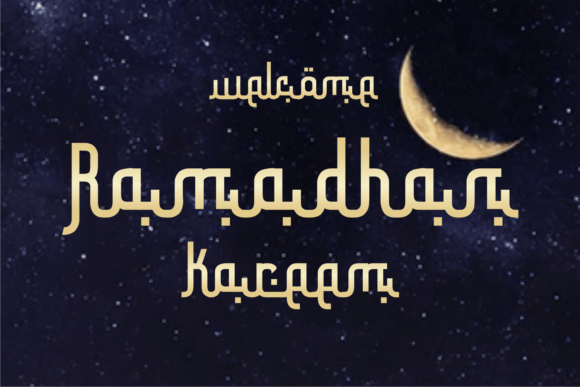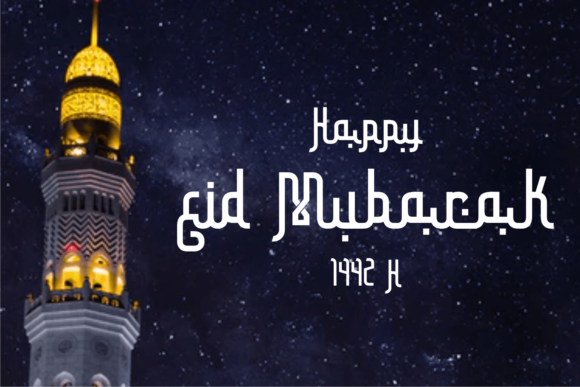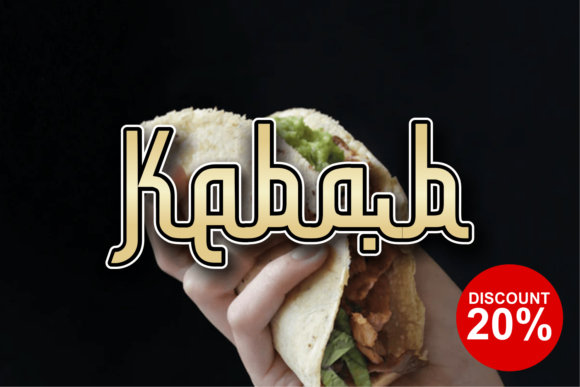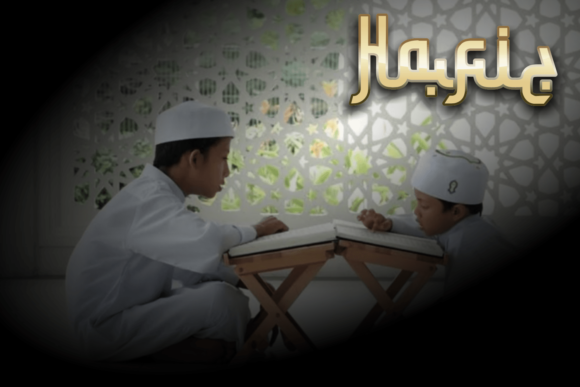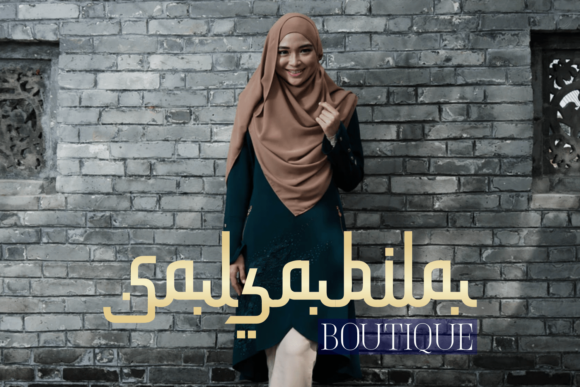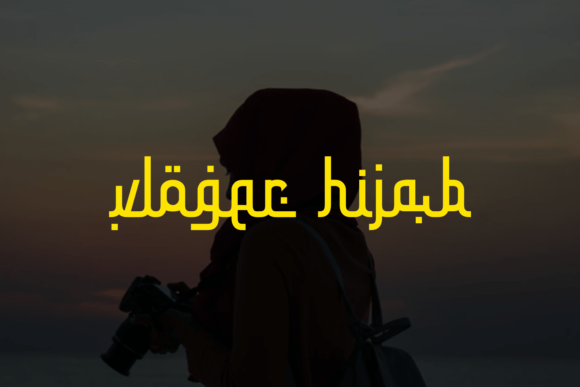
Introduction to Elmasive Font
Elmasive is a spectacular Middle-Eastern style display font.
This is the perfect font for making original and outstanding designs .
Key Features of Elmasive Font
Why Choose Elmasive Font?
Elmasive Font offers exceptional quality and versatility, making it a valuable addition to your design toolkit. Whether you’re creating for personal projects or commercial use, Elmasive Font delivers professional results.